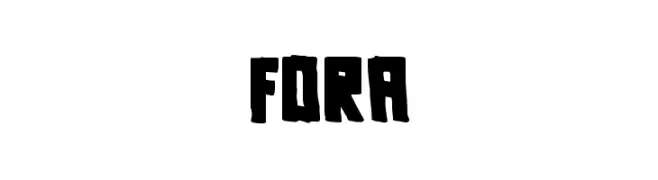
( Fonts by Rob Dobi - Toxic Type - www.dobi.nu )
A bold, hand-drawn font with textured interiors and playful outlines.
( Fonts by www.marcelomagalhaes.net )
A bold, outlined font with a geometric and eye-catching style.
( Fonts by www.marcelomagalhaes.net )
A hand-drawn, sketch-style font with a playful and artistic appearance.
( Fonts by www.marcelomagalhaes.net )
A bold, playful font with a shadow effect, perfect for eye-catching designs.
( Fonts by www.marcelomagalhaes.net )
A bold, solid font with a vintage yet modern appeal, ideal for impactful designs.
A dynamic and elegant script font with flowing, interconnected letters and decorative flourishes.
( WDS - Wedscley Melo - www.behance.net/wedscley )
A bold, rugged, hand-drawn font with a strong visual impact.